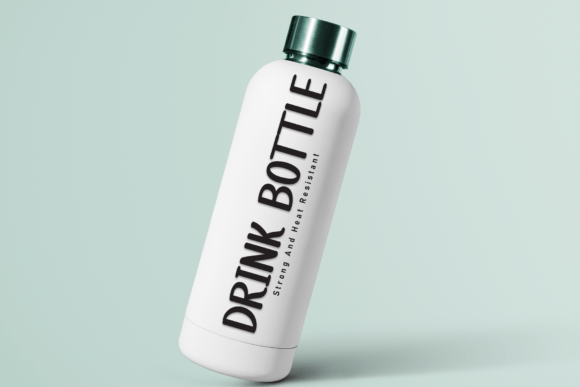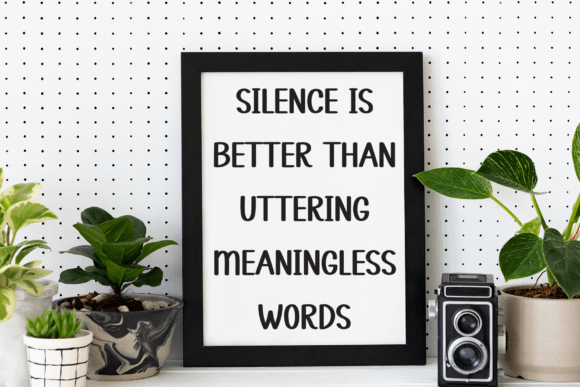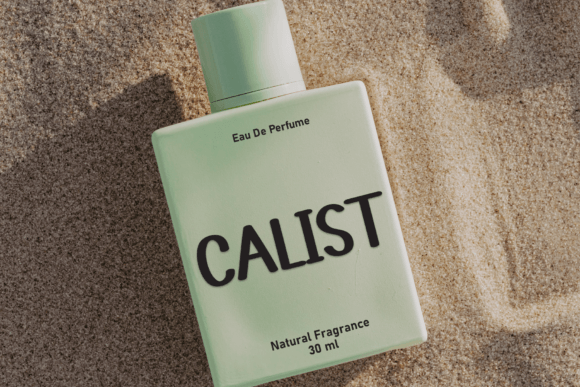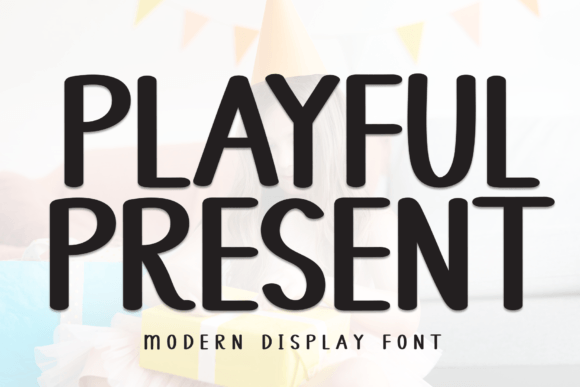
Introduction to Playful Present Font
Playful Present is a sweet and friendly handwritten display font.
Cute and fun, this font is ideal for writing wedding invitations, cards, or any other design that might need a fun touch .